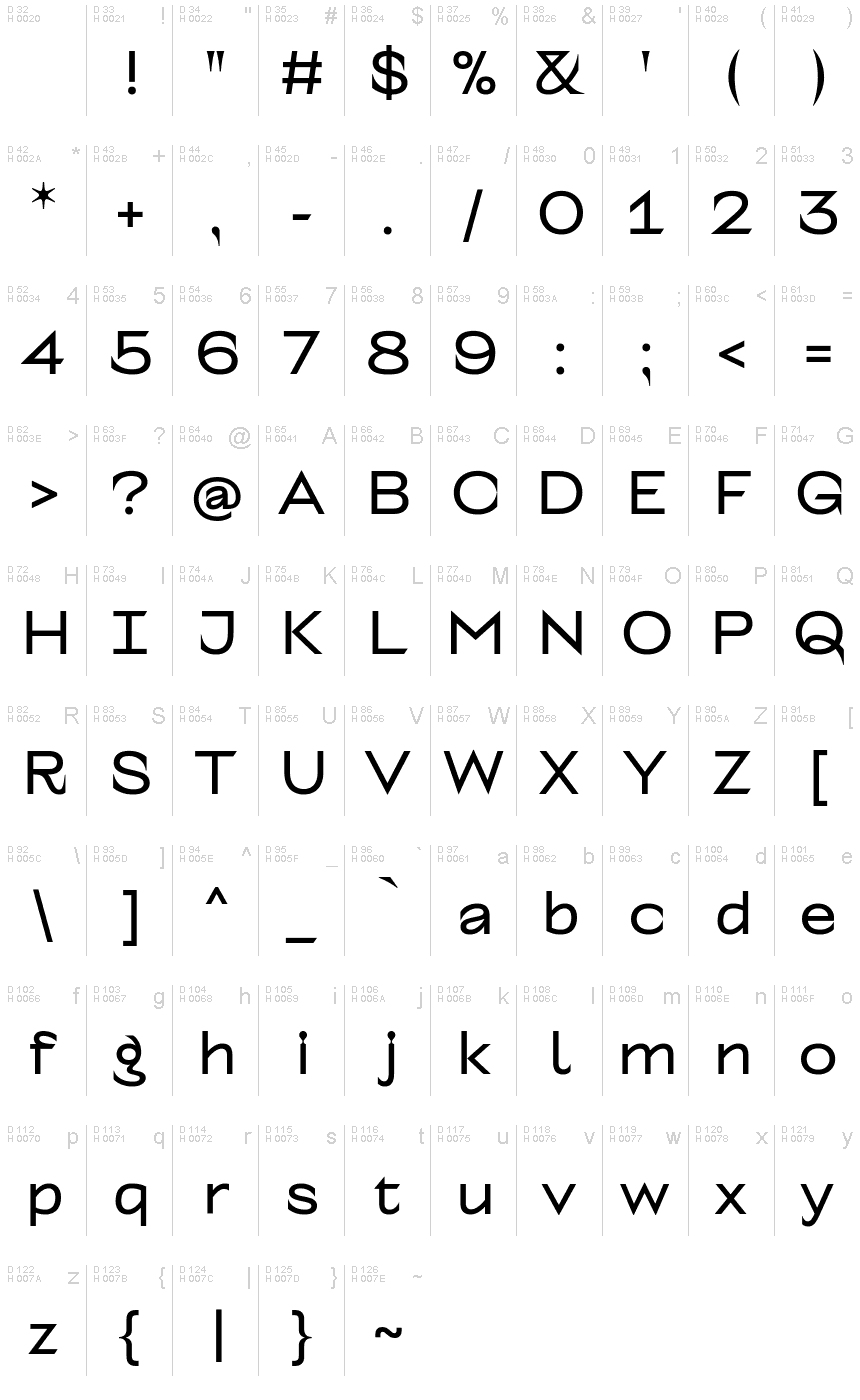
TT Alientz Trial Var
TT Alientz Var is a visually stunning, semi-light, semi-wide sans serif font that's perfect for creating fresh and modern designs. Crafted by TypeType, this font family is versatile and suitable for various projects including branding, advertising, web design and more. Whether you need to create a professional business logo or design an eye-catching website layout, TT Alientz Var has got you covered. The smooth curves and clean lines of this font style make it easy to read while still maintaining its unique character. Give your project a touch of sophistication with TT Alientz Var – the ultimate choice for any creative endeavor!